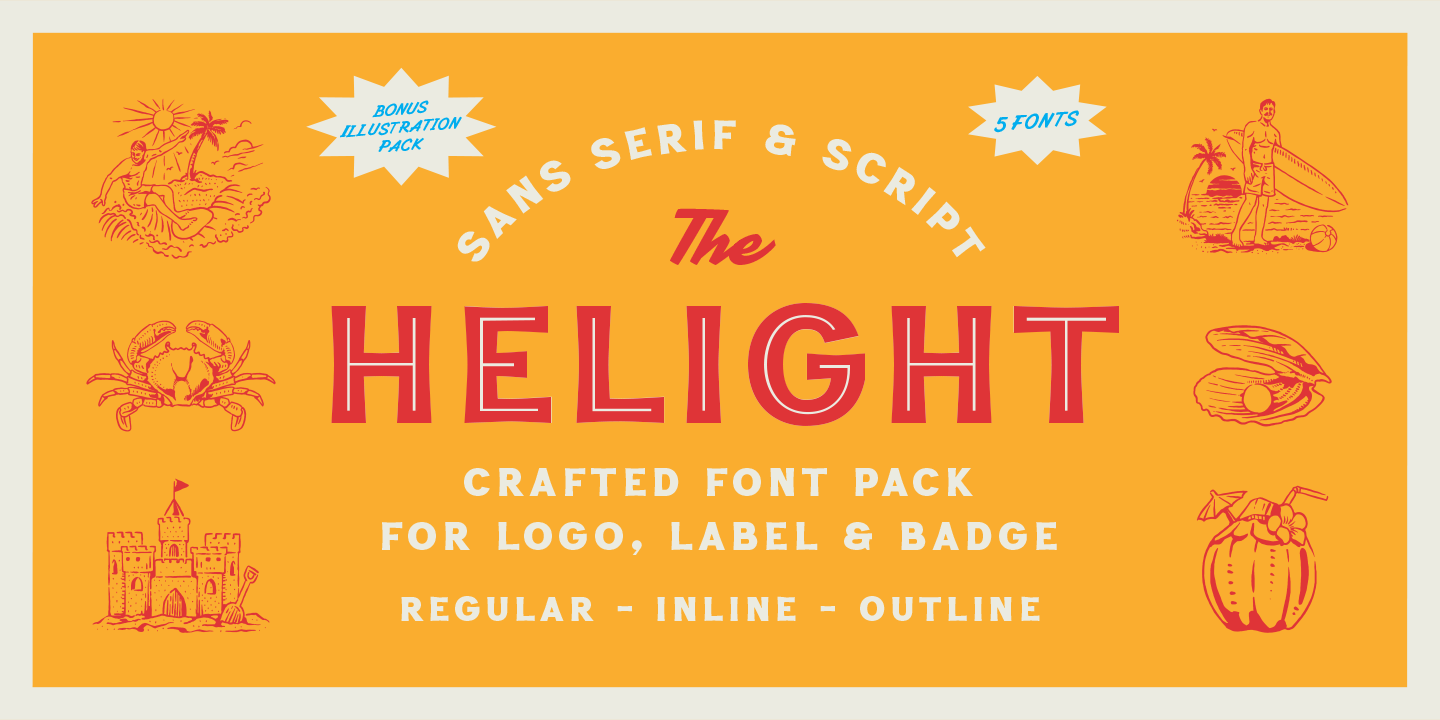
Helight Font excels in various design applications including wellness branding, meditation center logos, spiritual publications, health product packaging, yoga studio materials, mindfulness app interfaces, therapeutic service communications, and serene editorial designs. This enlightening typeface adapts beautifully to both peaceful digital platforms and calming print materials, making it ideal for designers seeking tranquility and spiritual illumination in their visual communications.
Helight Font generates excitement among design professionals due to its enlightened character and calming styling that instantly conveys peace and spiritual awareness. The font's serene letterforms and balanced proportions create an immediate sense of harmony and inner light. Its spiritual personality makes it particularly appealing for brands wanting to communicate wellness, mindfulness, and enlightened living in their visual identity.
The Helight Font family includes multiple weights and styles such as Regular, Bold, Light, Medium, and Thin variations. Each family member maintains peaceful design principles while offering distinct spiritual characteristics. The Light weight provides gentle serenity for meditative applications, while the Bold version delivers inspired impact for wellness headlines and enlightened brand statements.
Wellness designers frequently choose Helight Font Free Download for projects requiring both spiritual authenticity and brand distinction. This typeface demonstrates remarkable effectiveness across wellness industries including health centers, spiritual organizations, meditation apps, and holistic brands. Its enlightened character allows organizations to communicate inner peace while maintaining excellent readability and serene visual appeal that promotes tranquility and spiritual connection with audiences.